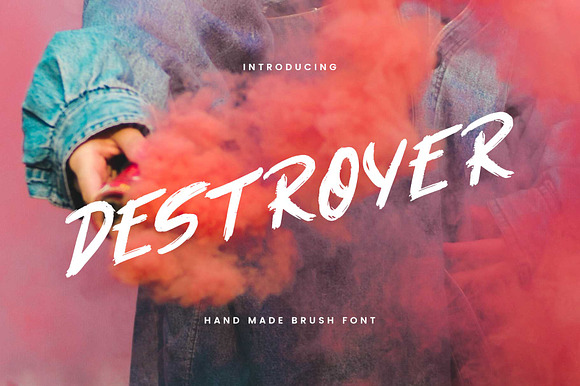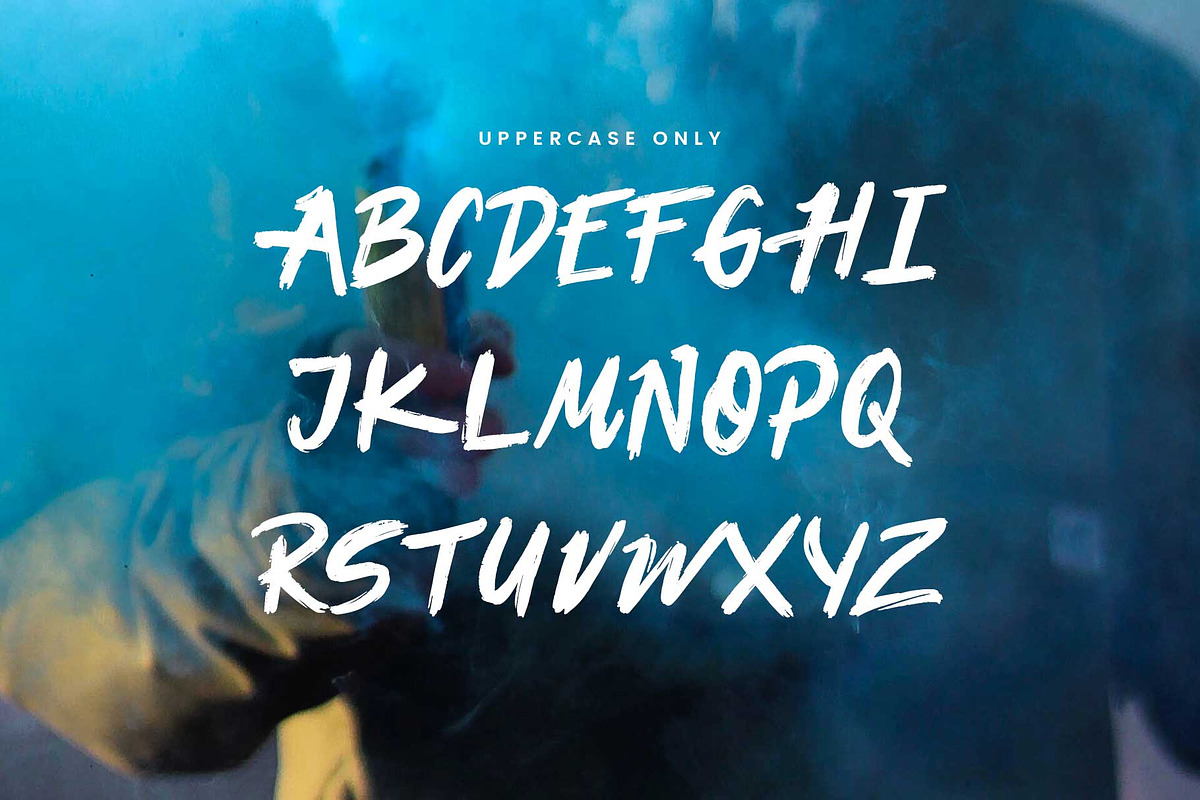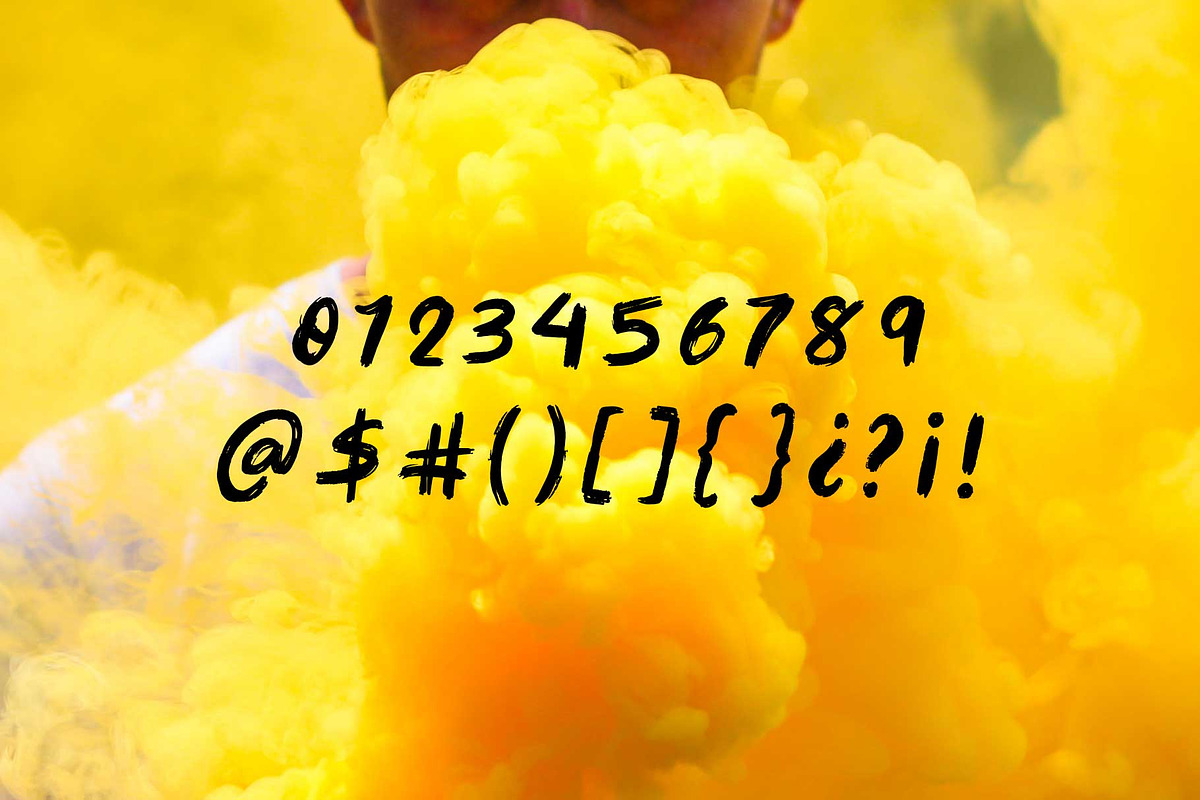
Destroyer — Brush Font
Why Destroyer — Brush Font is worth a look
Destroyer — Brush Font by Noe Araujo fits naturally into Branding, posters, packaging, typography.